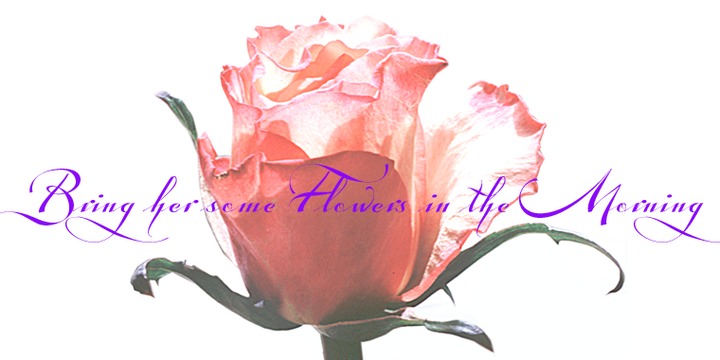
Tosca
Tosca is an amazing font. It is very attractive, elegant, and highly ornamental typeface armed with 730 glyphs! You may put a second set of capital letters in the places of the smallcaps. This capability of the font makes it highly suitable for creative writers. Hence, you can type the word in lowercase and then choose the first letter before transforming it to smallcap in the OpenType menu. Tosca comes with a ton of ligatures that can be easily accessed through OpenType. Once you have learnt the technique of using OpenType features for the font, it will be real fun using these. You may require making a lot of efforts in this respect. But the efforts are truly worth it.
Once you get the gist of the typeface, you can come up with some real interesting characters to add life to your project.